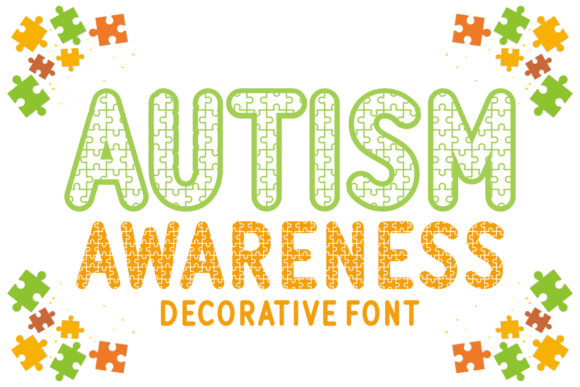
Welcome to the world of Autism Awareness, a font that speaks volumes about love, acceptance, and the beautiful tapestry of human diversity. A creation of the brilliant Senchou, this decorative font goes beyond mere aesthetics; it's a statement of empathy and inclusion.
Immerse yourself in the intricate details, reminiscent of puzzle pieces seamlessly interlocking, and discover a font that's as unique as the individuals it represents. With its playful spirit and warm embrace, Autism Awareness transforms your designs into expressions of compassion and understanding.
Whether you're a graphic designer, a passionate crafter, or simply someone seeking to add a touch of heart to your digital creations, Autism Awareness is your perfect companion. Picture your logos radiating with inclusivity, your t-shirt designs brimming with acceptance, and your sports apparel igniting a spirit of unity.
This font is more than just a collection of letters; it's a symbol of understanding and a reminder that our differences make us stronger. When you choose Autism Awareness, you not only enhance your designs but also contribute to a world where every individual feels valued and celebrated.
Embrace the beauty of diversity and let Autism Awareness be your artistic ambassador of love. Unlock a world of inspiration and creativity, where every design tells a story of acceptance and every font choice speaks volumes about your commitment to a kinder, more inclusive world.